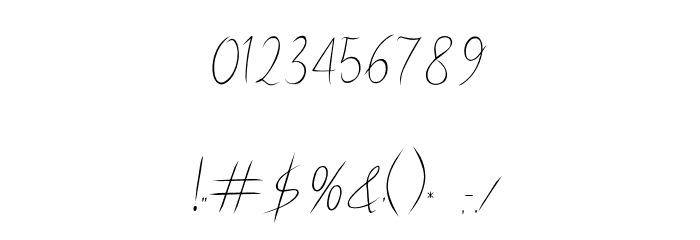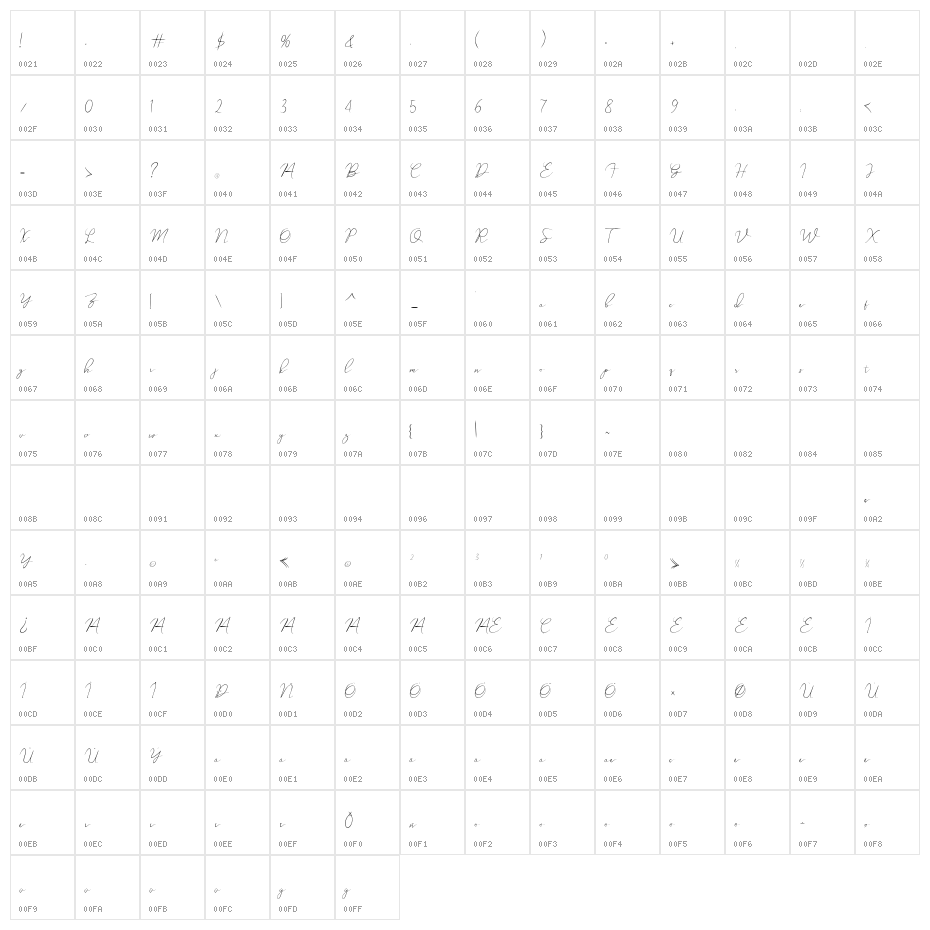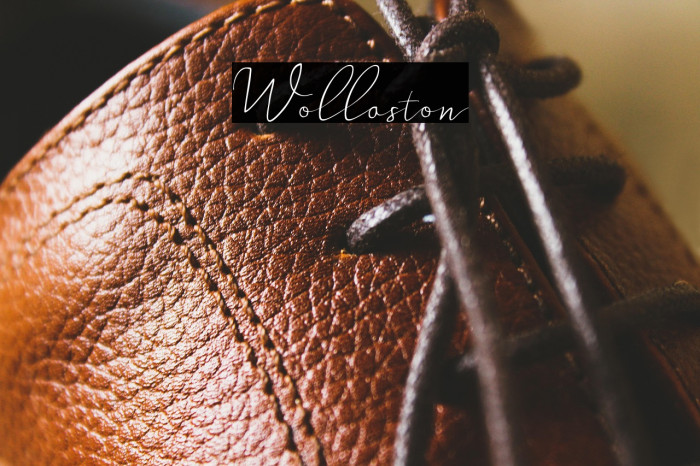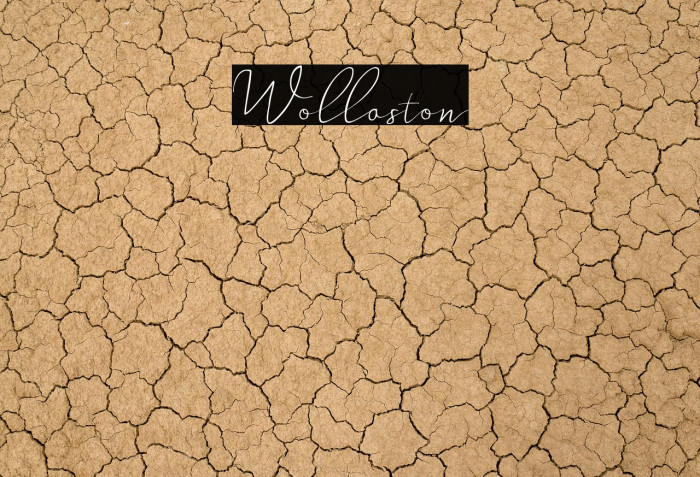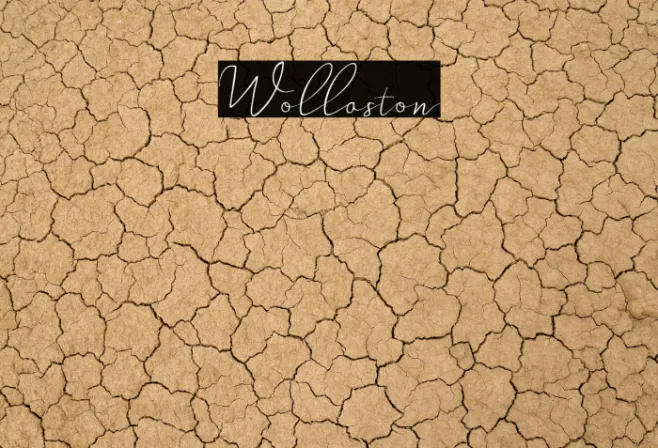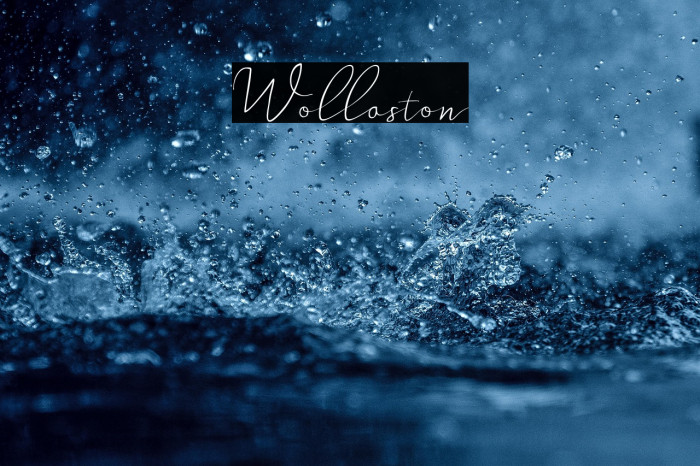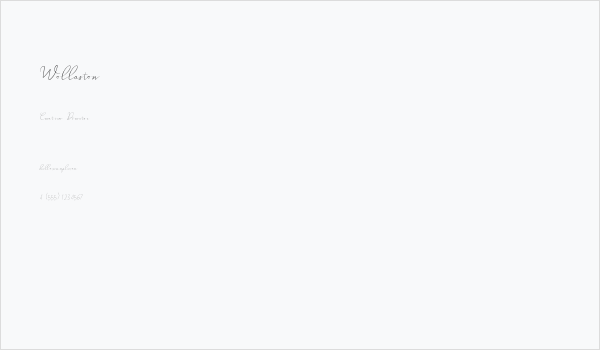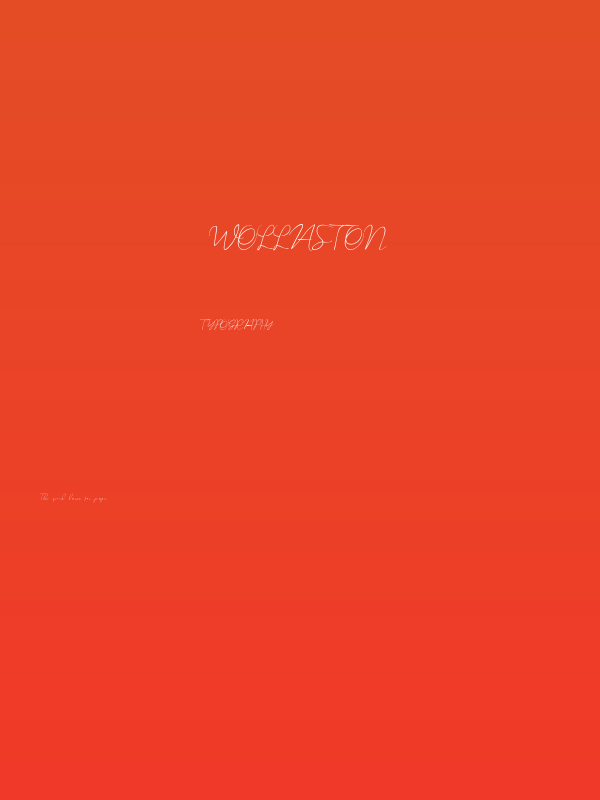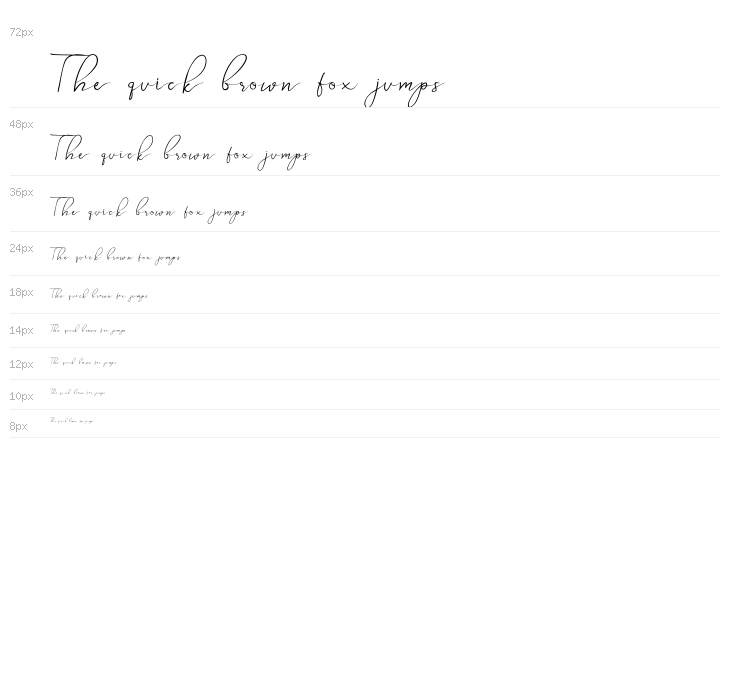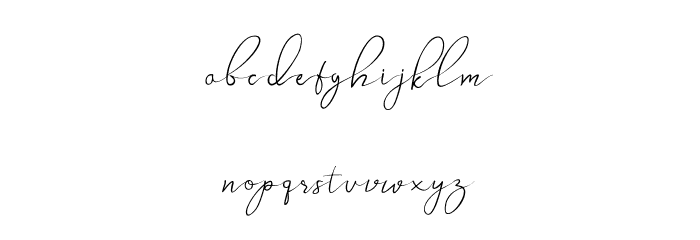
Wollaston Font
Wollaston Description
This elegant script font features a delicate and flowing design, characterized by its graceful curves and thin, fluid strokes. The uppercase letters exhibit a sophisticated flair with extended ascenders and descenders, creating a sense of movement and elegance. The lowercase letters maintain a consistent style, complementing the uppercase with their smooth, connected forms. The numerals are designed with a similar fluidity, ensuring a cohesive look throughout. Special characters are crafted with the same attention to detail, enhancing the font's overall aesthetic. This font is ideal for projects that require a touch of sophistication and elegance, such as wedding invitations, formal event programs, or luxury branding.